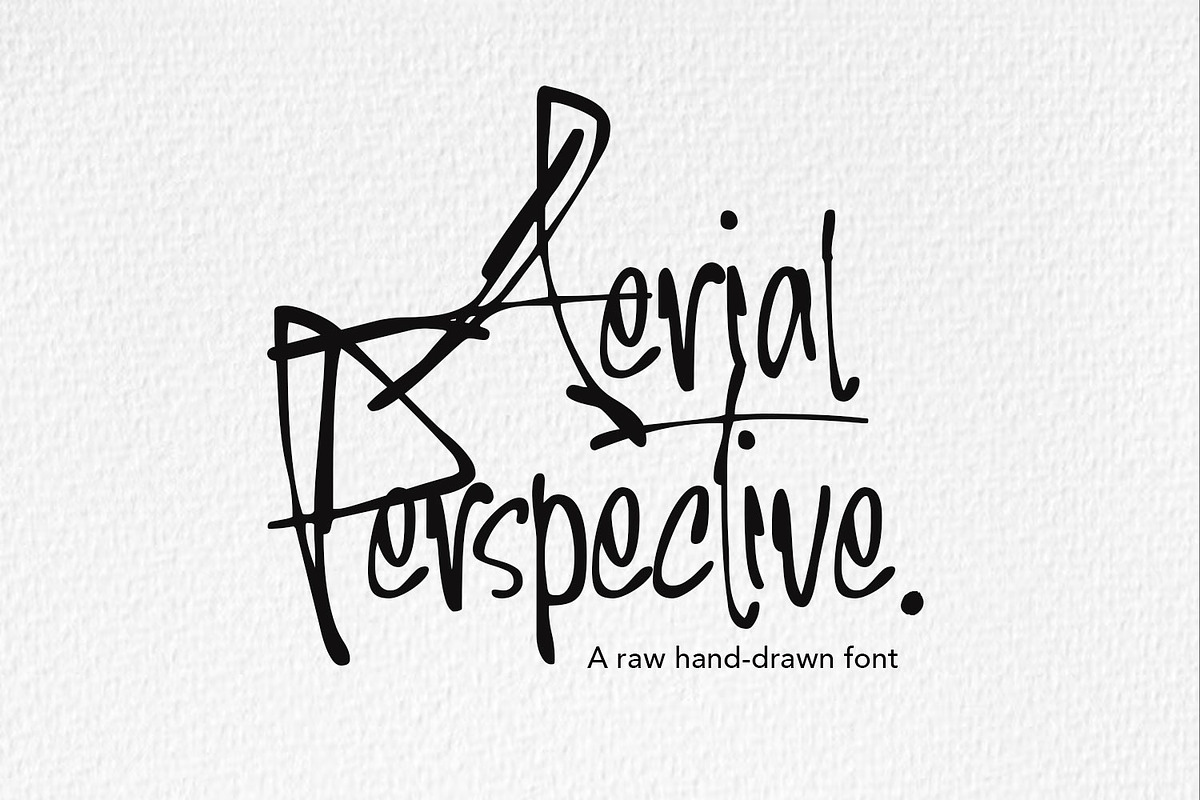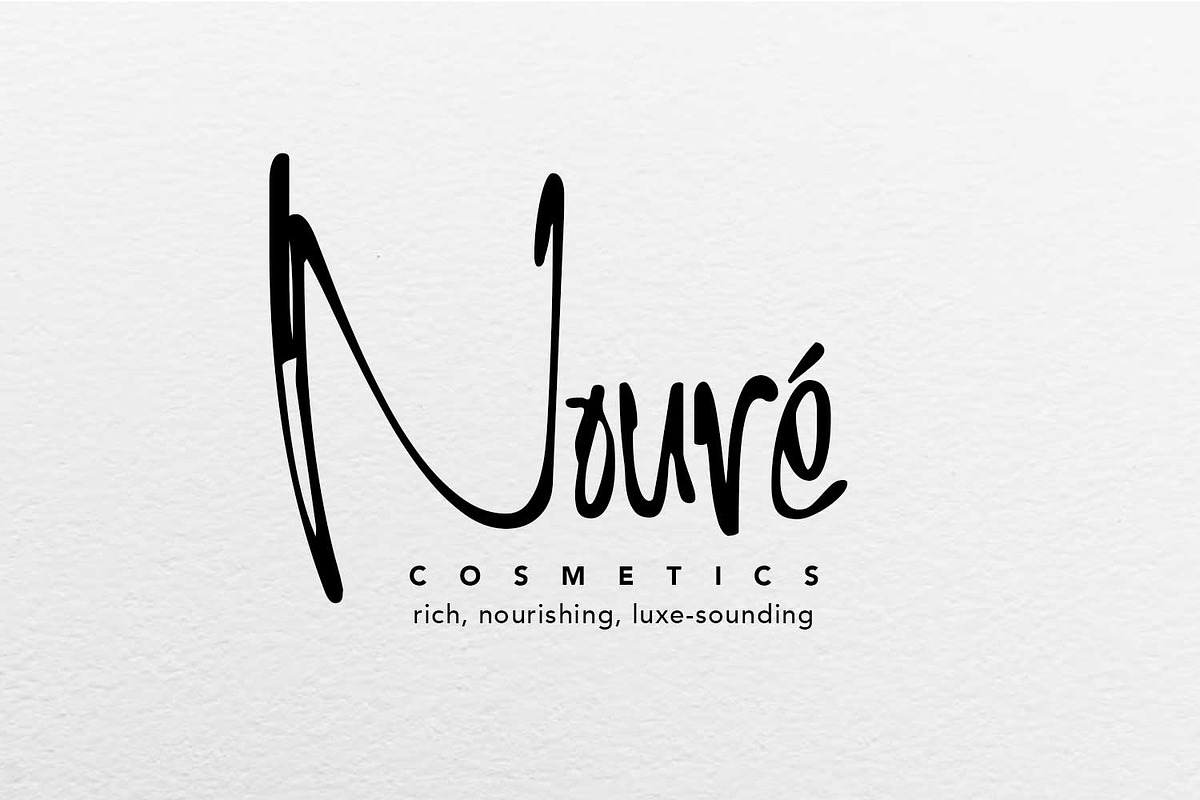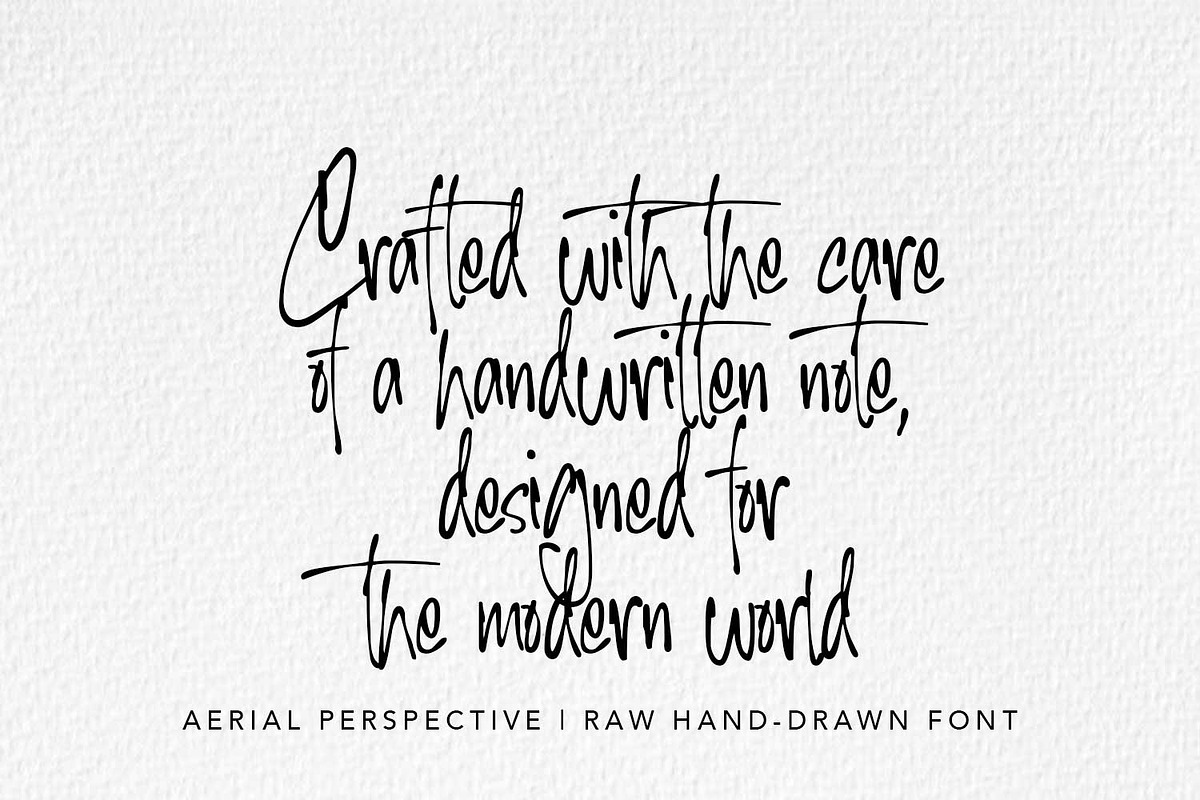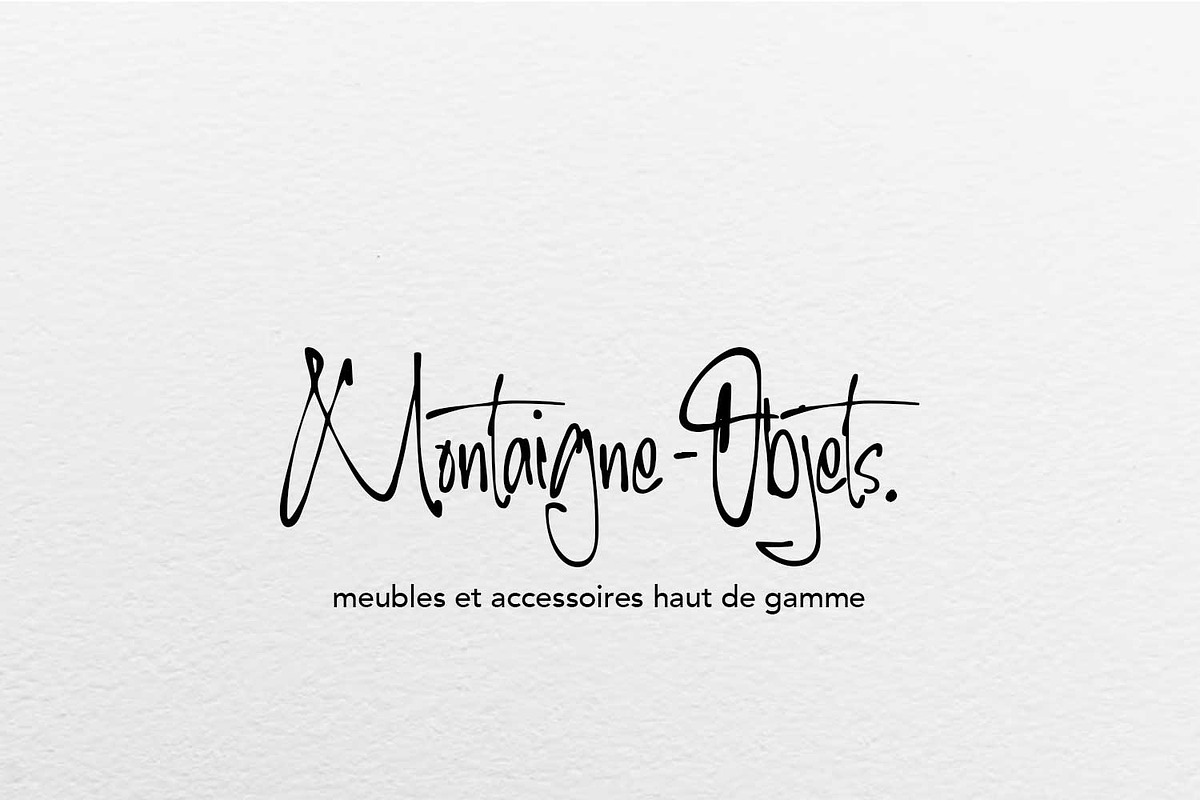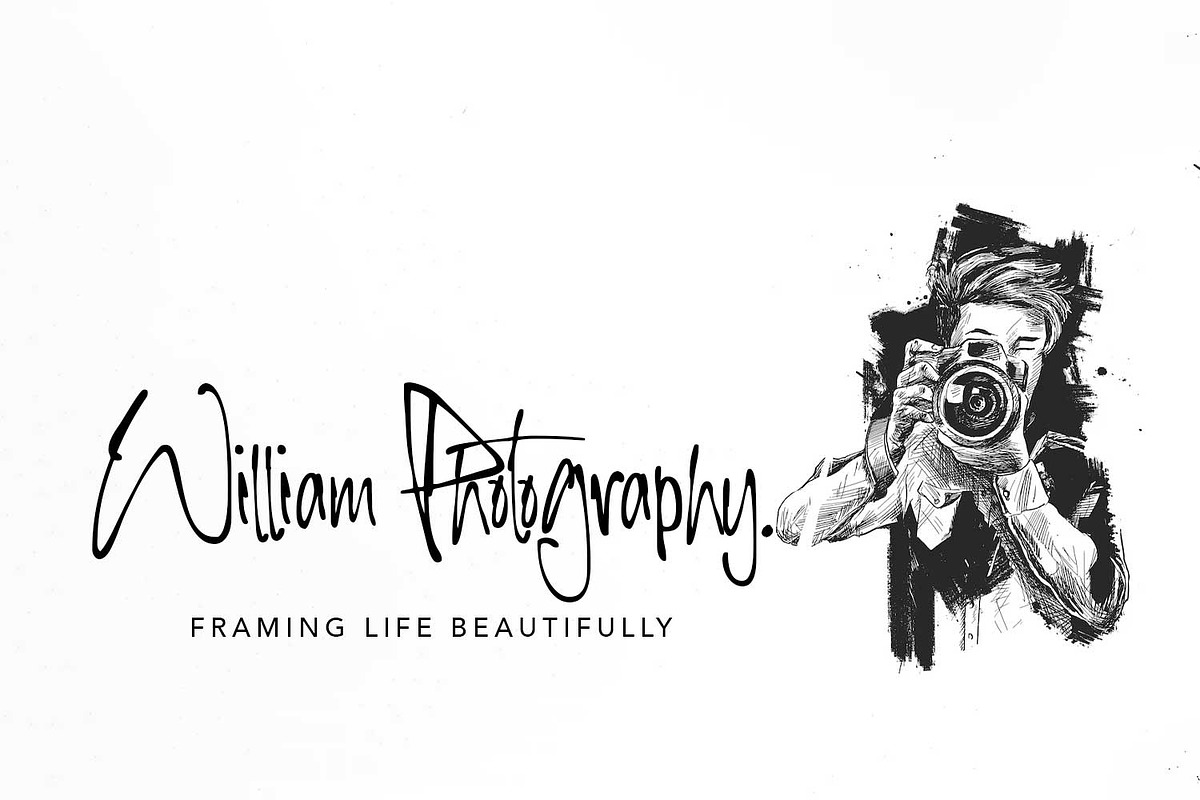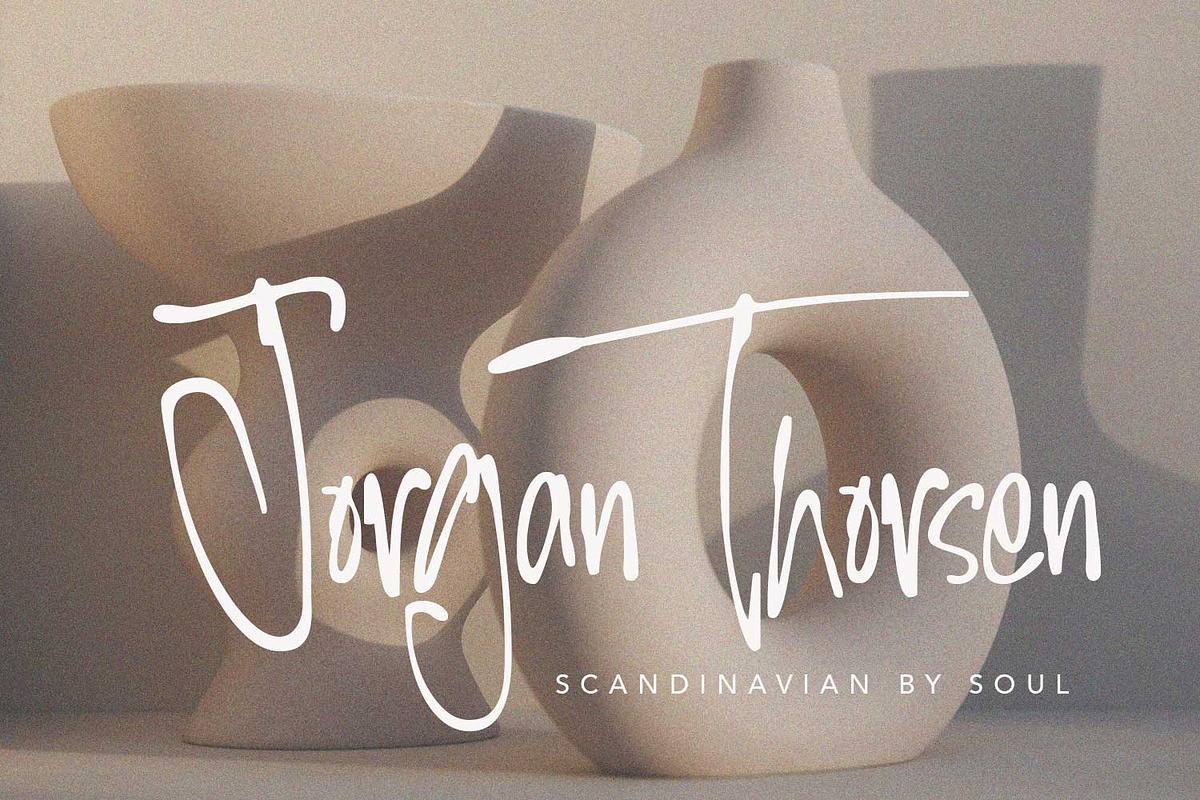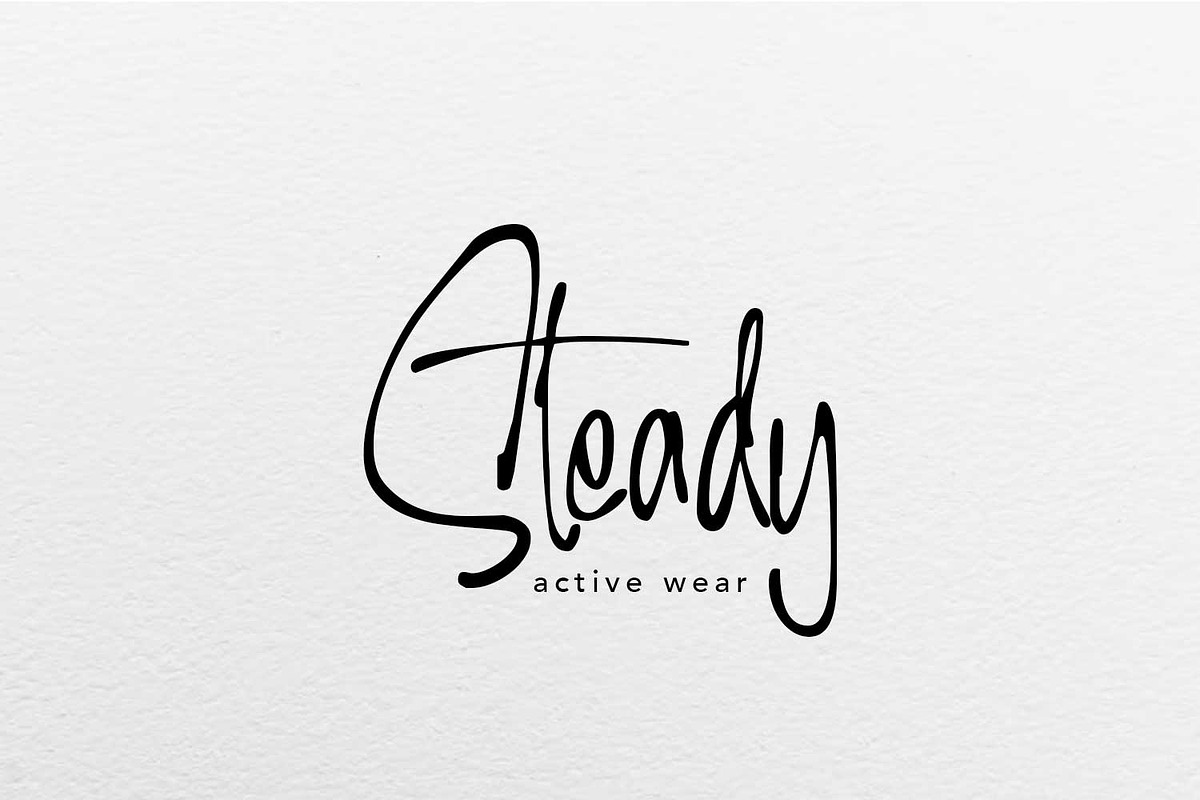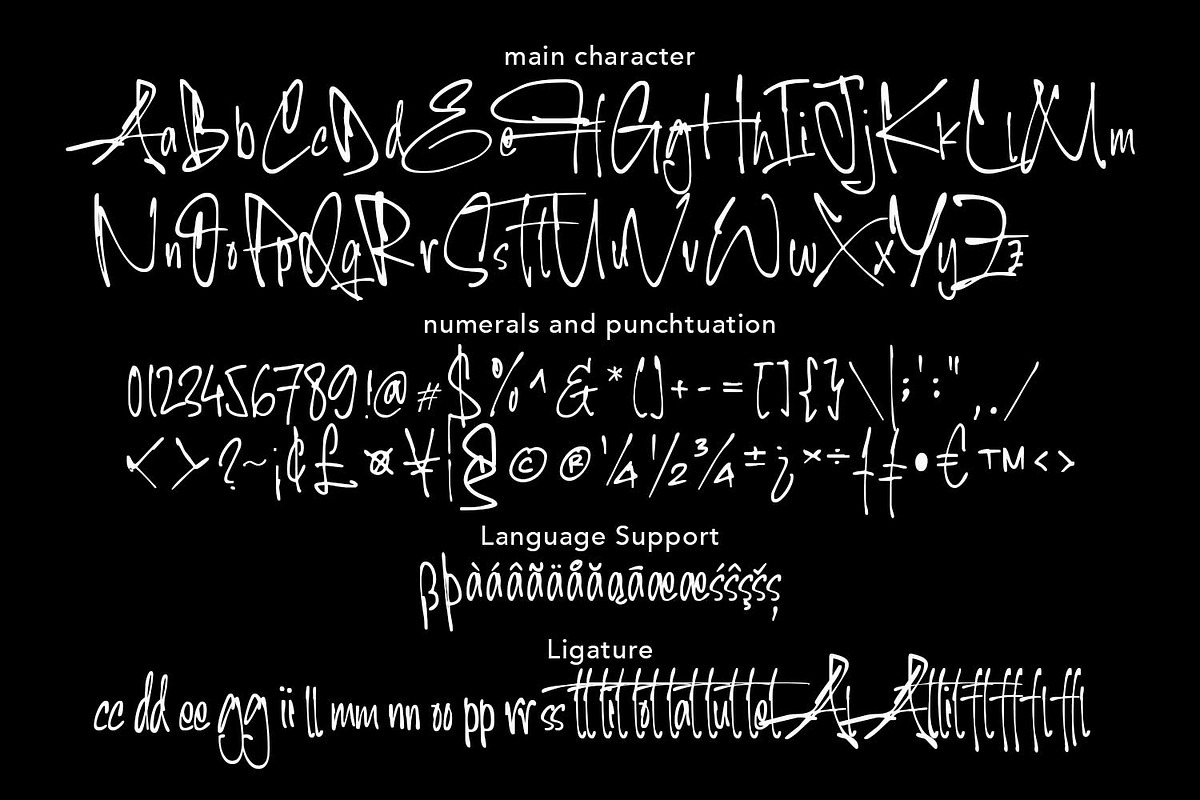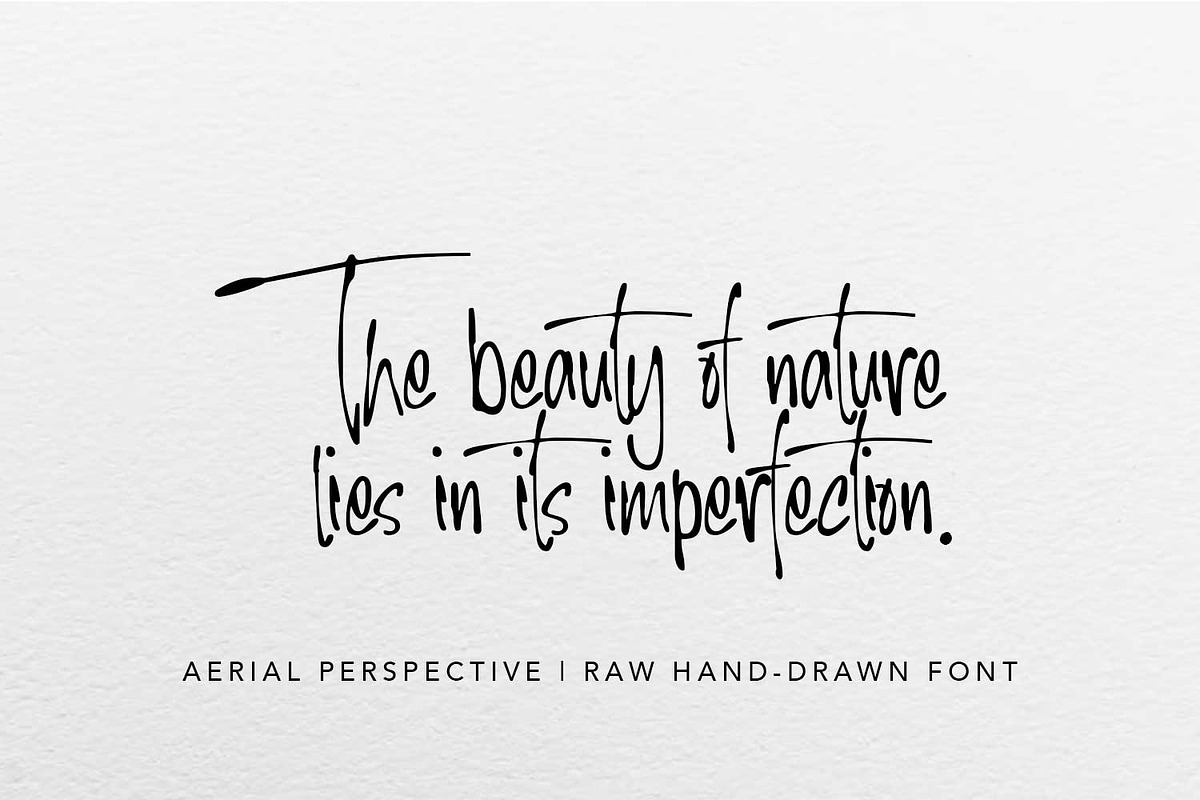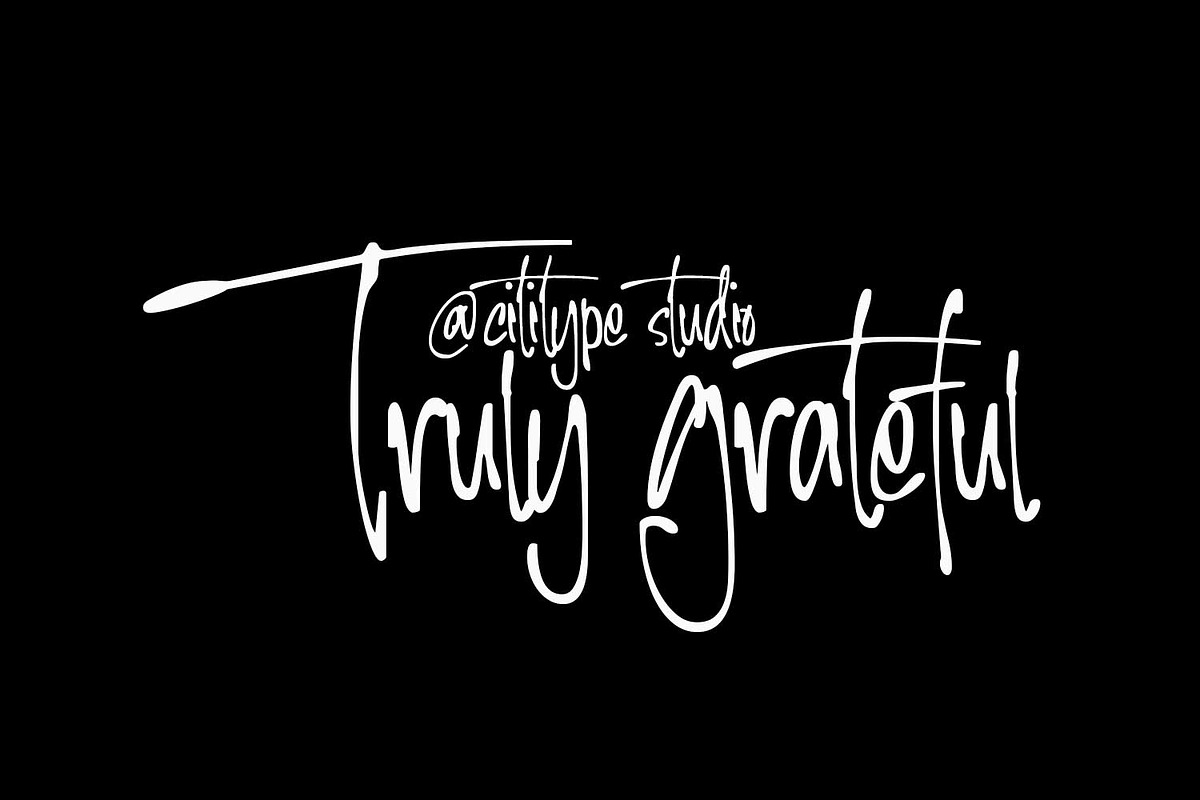
Aerial Perspective
Aerial Perspective is a handcrafted font that captures the spirit of raw, expressive handwriting. With its organic forms and sticky ink-like texture, this font brings a natural, slightly imperfect charm—just like writing with a real pen on paper. Each letter flows with a gentle rhythm, full of subtle imperfections that give it life and honesty. Carefully crafted ligatures mimic the connections found in real handwriting, creating smooth transitions and a handwritten feel that feels truly personal. Whether you're designing book covers, logos, posters, or heartfelt quotes, Aerial Perspective adds a layer of warmth and emotion without trying too hard. It’s bold in character, but soft in attitude—making it a versatile choice for expressive branding, editorial layouts, and social content that needs a touch of humanity.